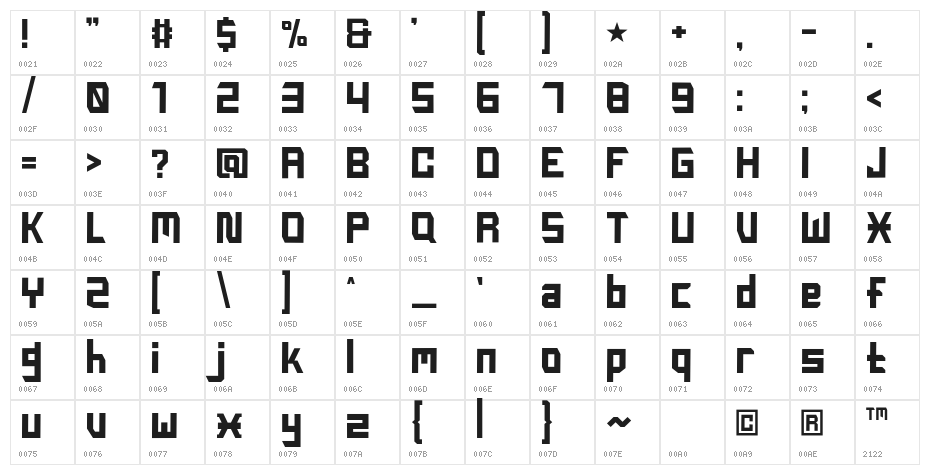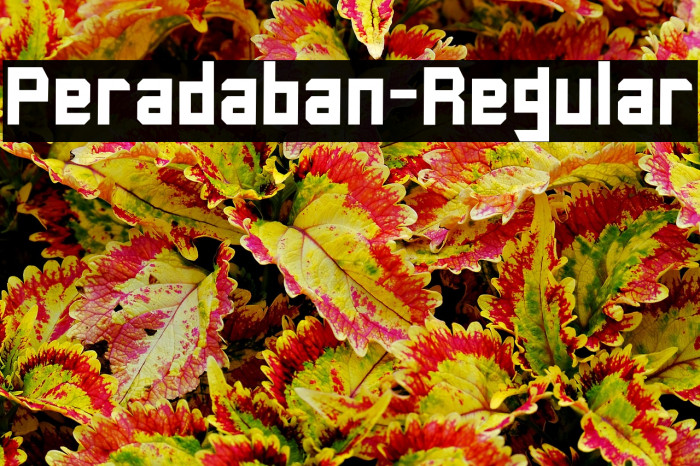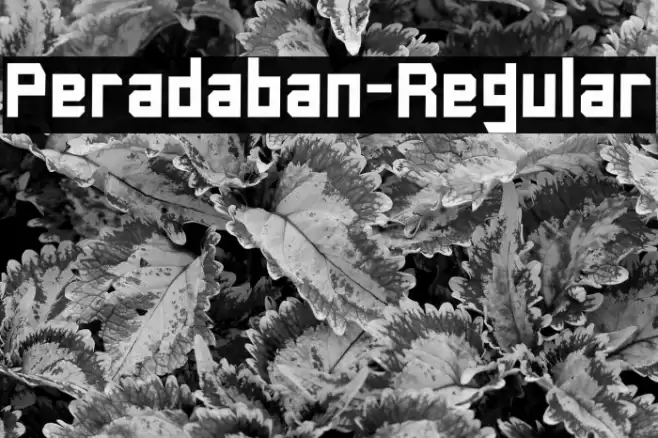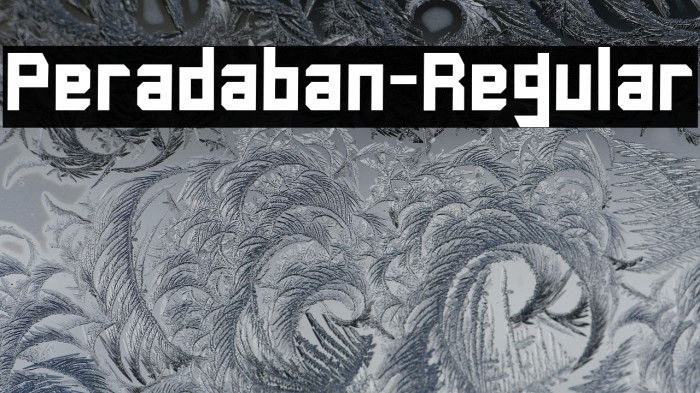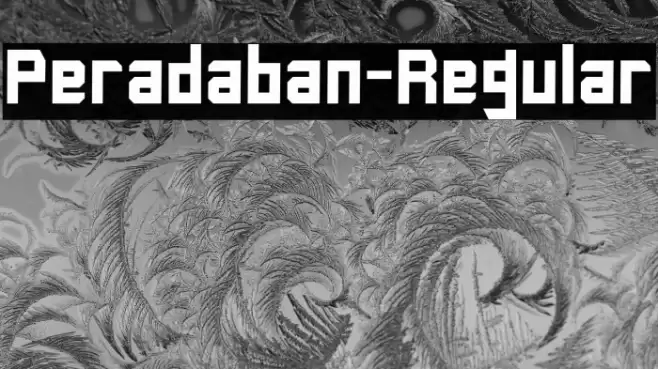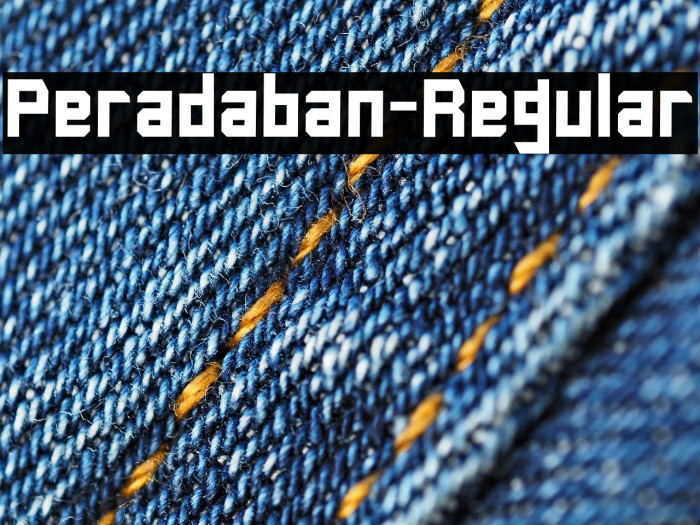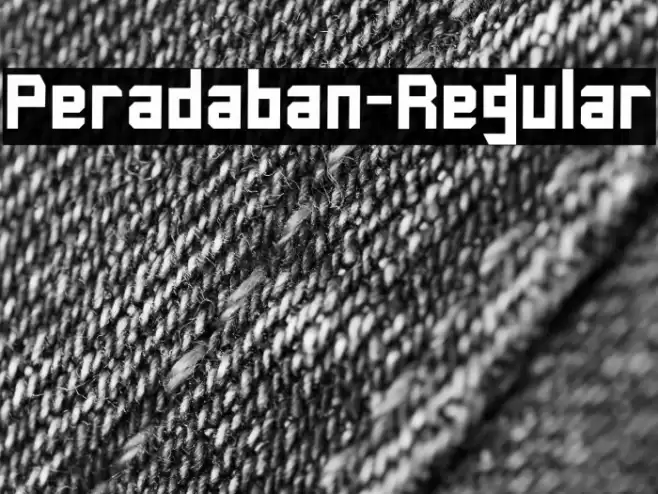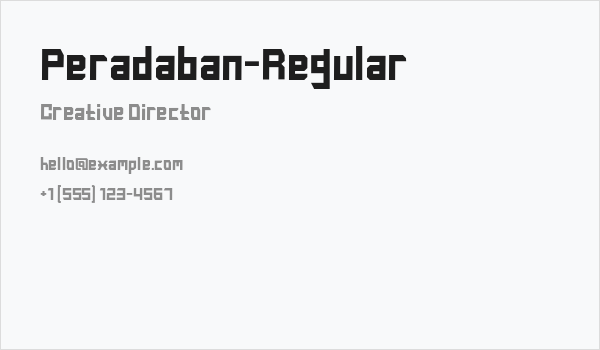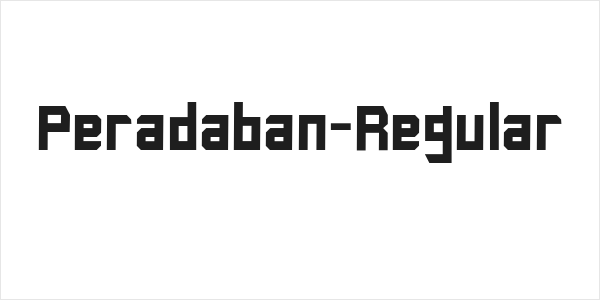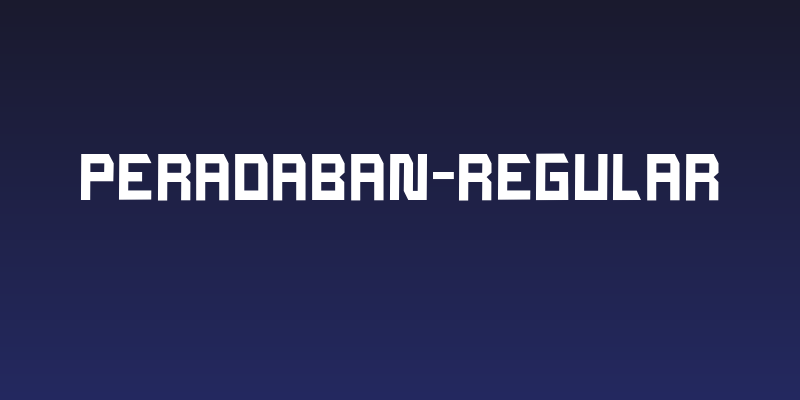
Peradaban-Regular Font
Peradaban-Regular Description
This font features a bold, geometric style with strong, angular lines and a modern aesthetic. The uppercase and lowercase letters maintain a consistent height, creating a uniform appearance. The numerals and special characters are designed with the same angular precision, making them highly legible and visually striking. The overall design is reminiscent of futuristic or digital themes, with a blocky structure that conveys strength and stability. The font's unique character shapes make it suitable for attention-grabbing headlines and titles.
| Proposed Projects | Ideal for sci-fi themed projects, video game titles, tech company logos, and modern posters. |